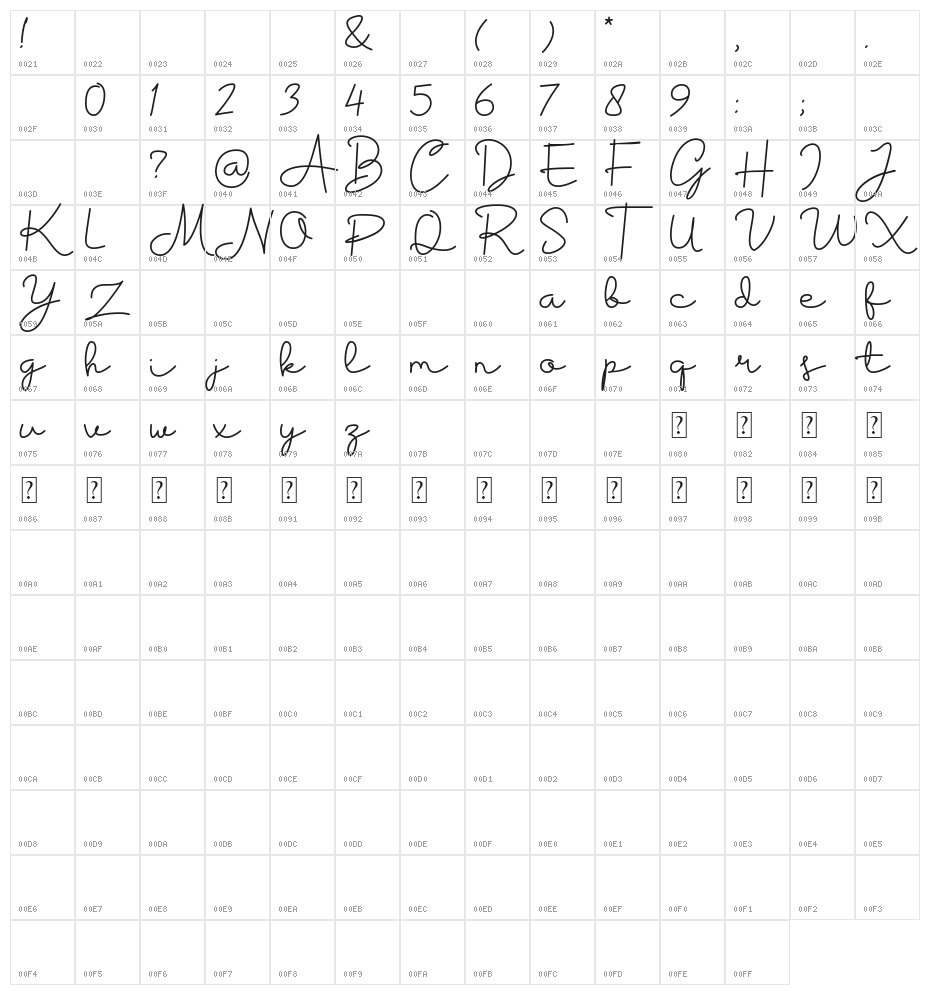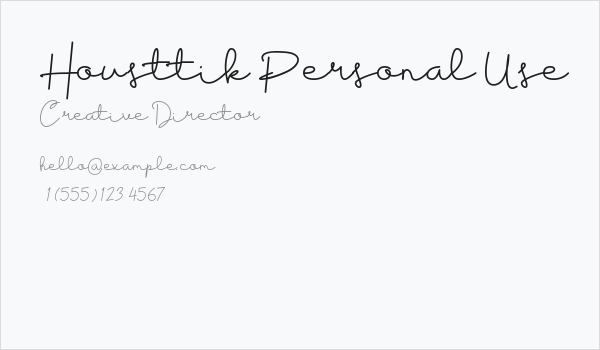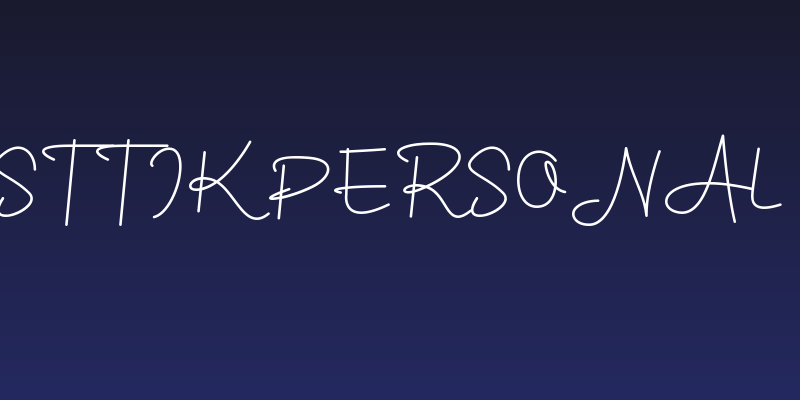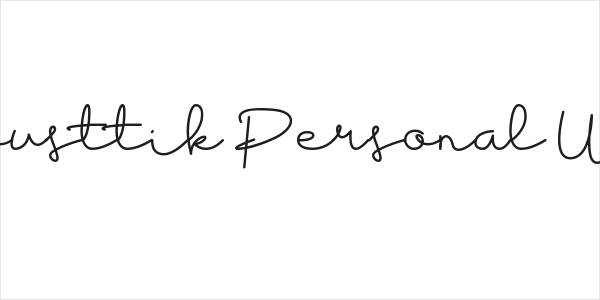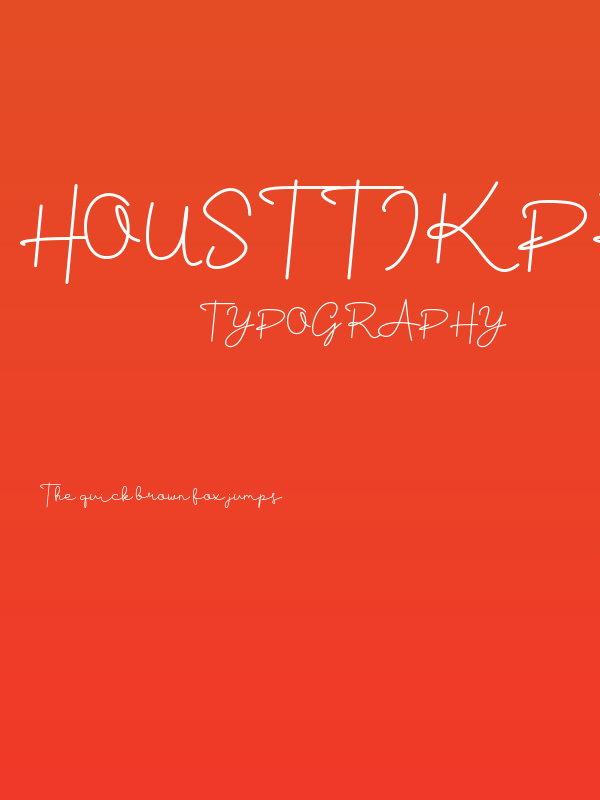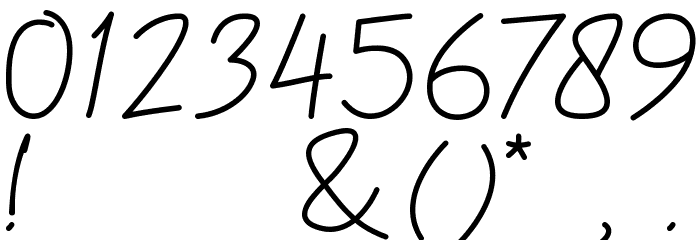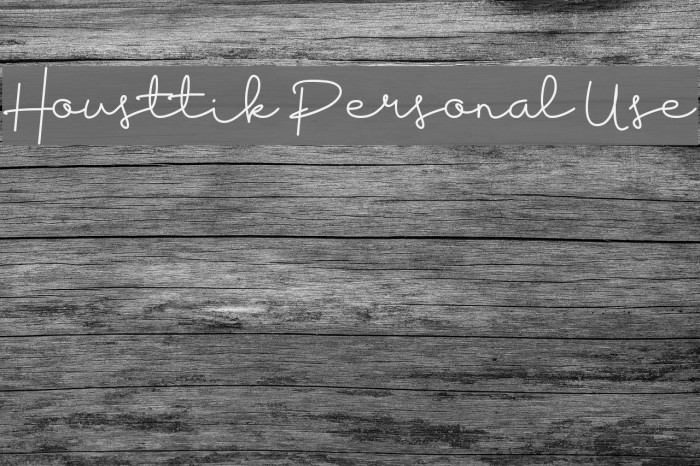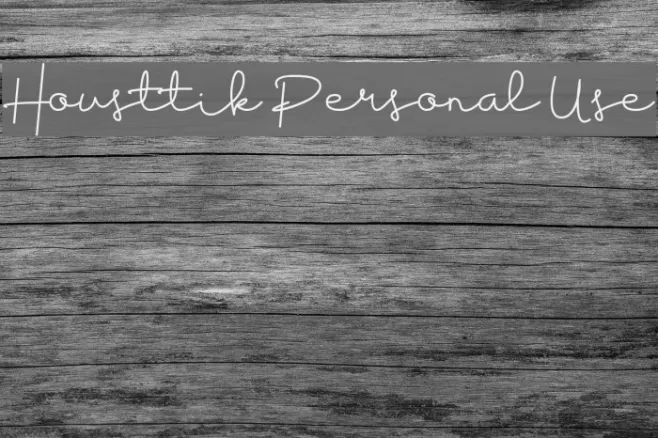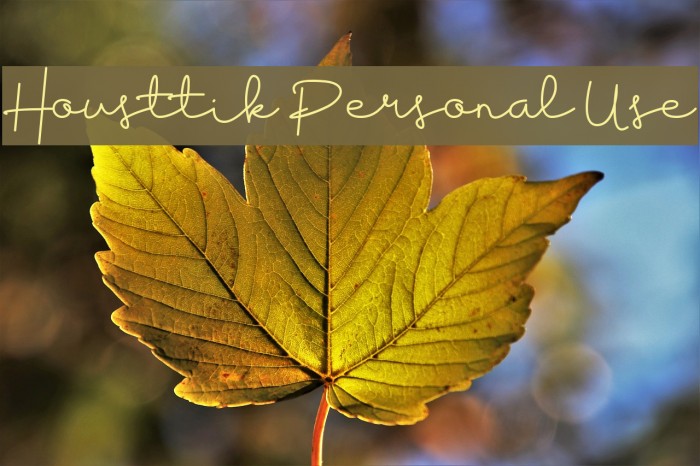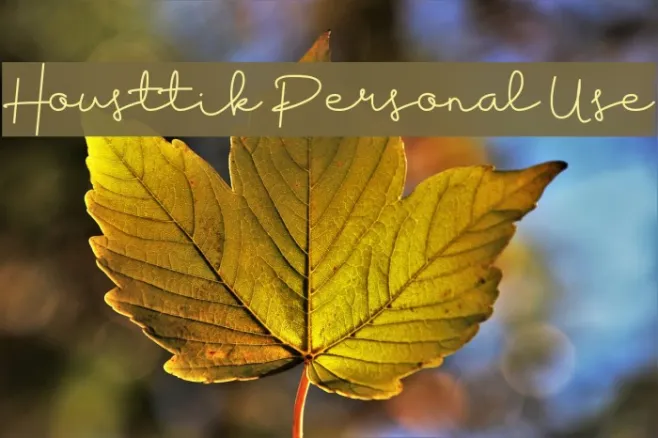
Housttik Personal Use Font
Housttik Personal Use Description
This font features a playful and elegant handwritten style, characterized by smooth, flowing lines and a casual yet sophisticated appearance. The uppercase letters are slightly more structured, while the lowercase letters exhibit a more relaxed and fluid form. Numbers and special characters maintain the same whimsical quality, making the font versatile for various creative applications. The strokes are consistent in thickness, providing a harmonious and balanced look. This font is ideal for projects that require a personal touch, such as invitations, greeting cards, and branding materials.
| Use Case | Logos, Headlines, Personal projects |
| Proposed Projects | Ideal for invitations, greeting cards, branding materials, and personal projects. |